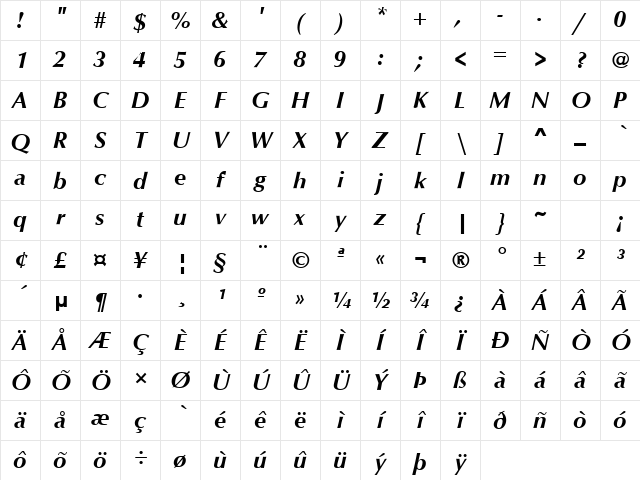
Optimum Bold Italic
Complete Optimum Bold Italic glyph index. Displaying only characters natively supported by Optimum Bold Italic font.
Design Context for Optimum
Optimum is a composed and adaptable typeface that performs quietly and consistently across a wide range of design contexts. The slanted form adds forward momentum and visual energy. Its bold stroke weight gives it real presence on the page.
Pro Tip: Use Optimum for emphasis, pull quotes, and subheadings where its slanted energy can add rhythm to the layout.